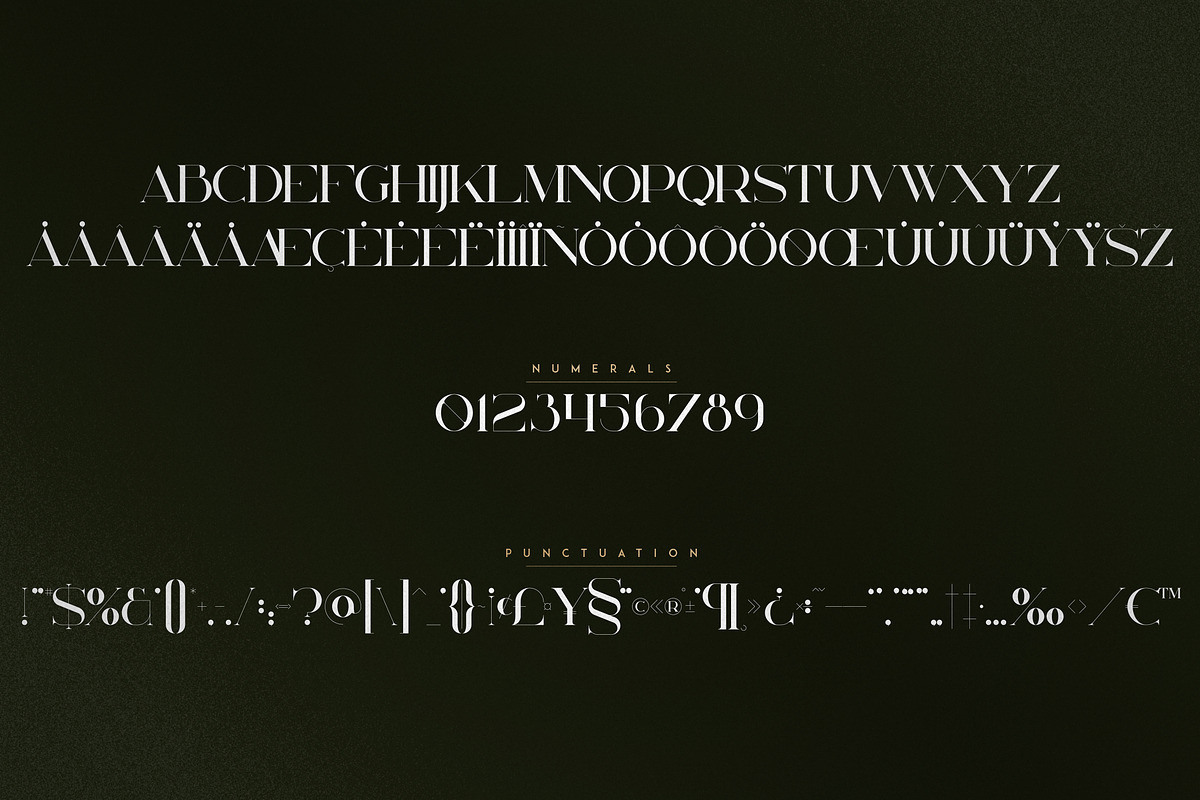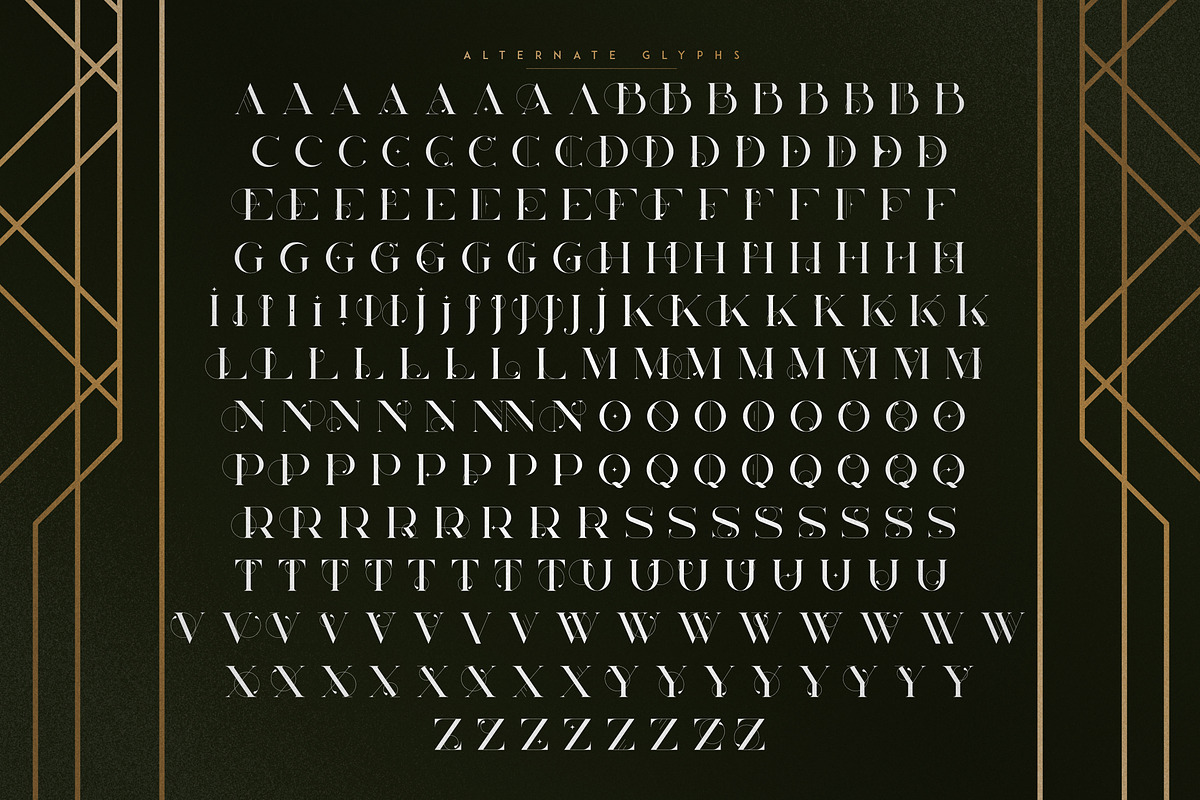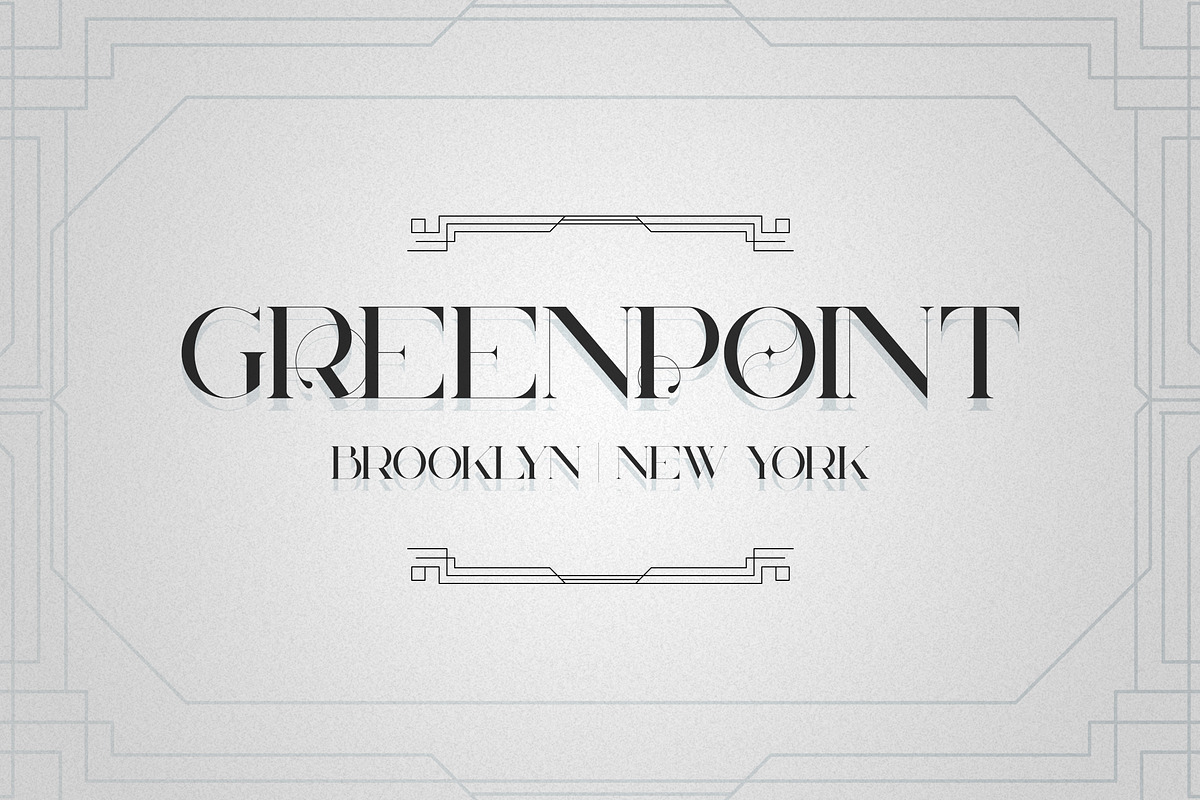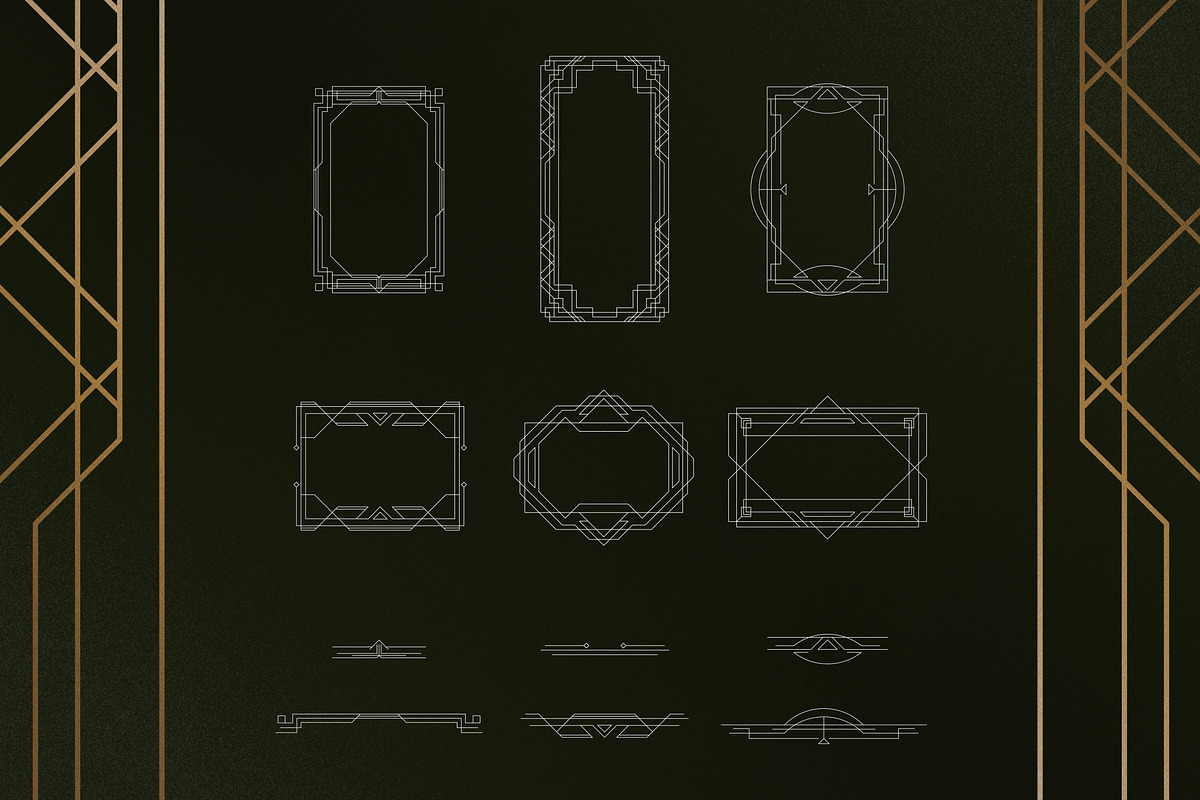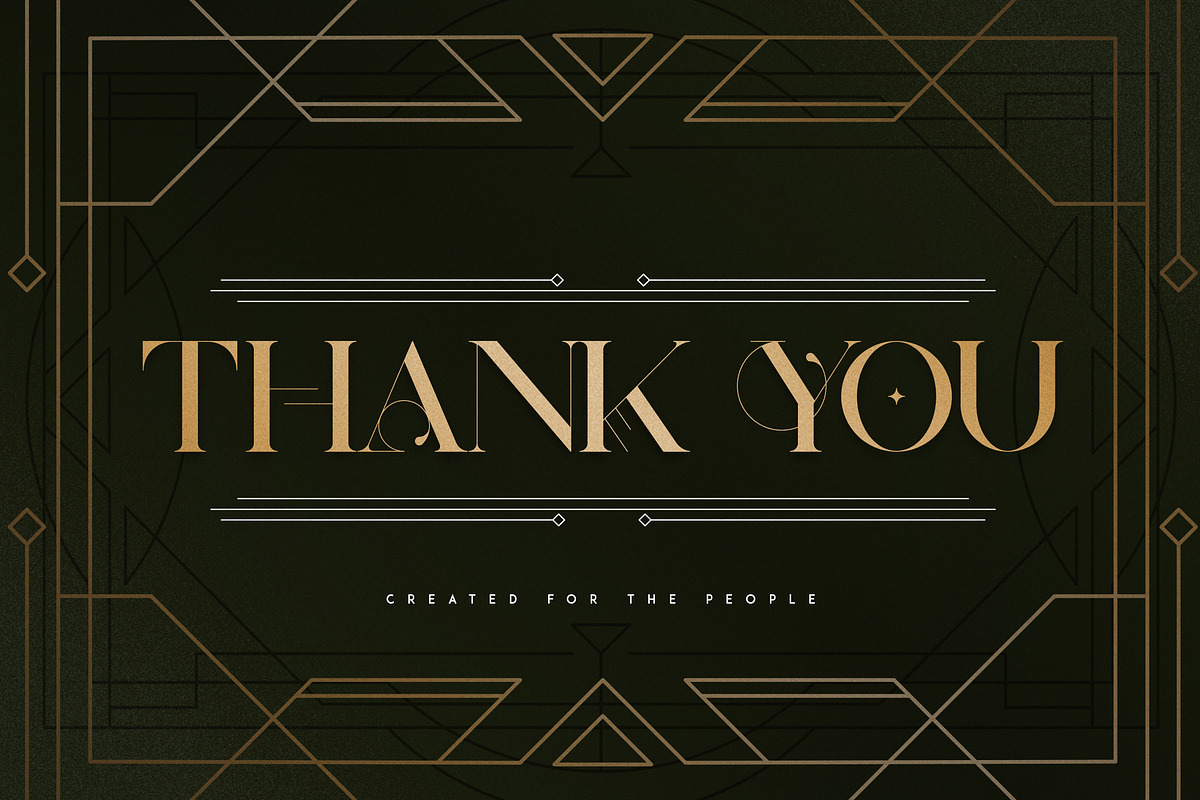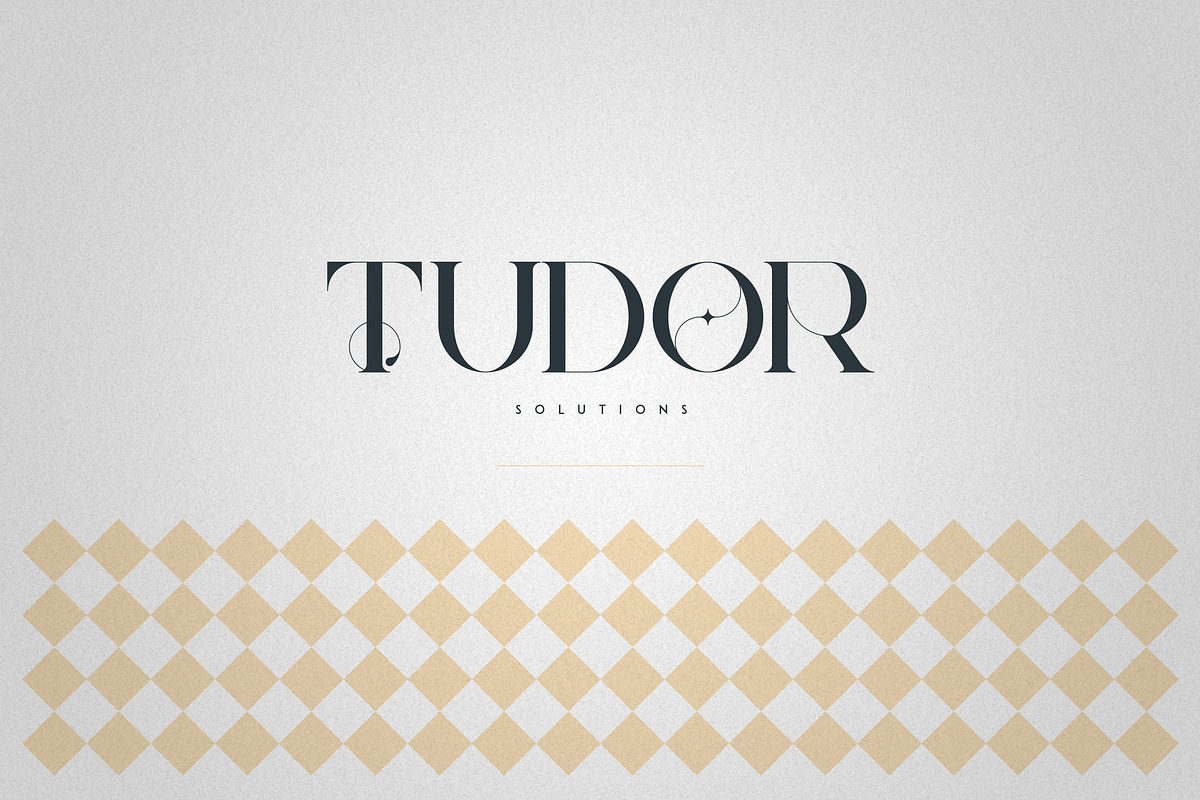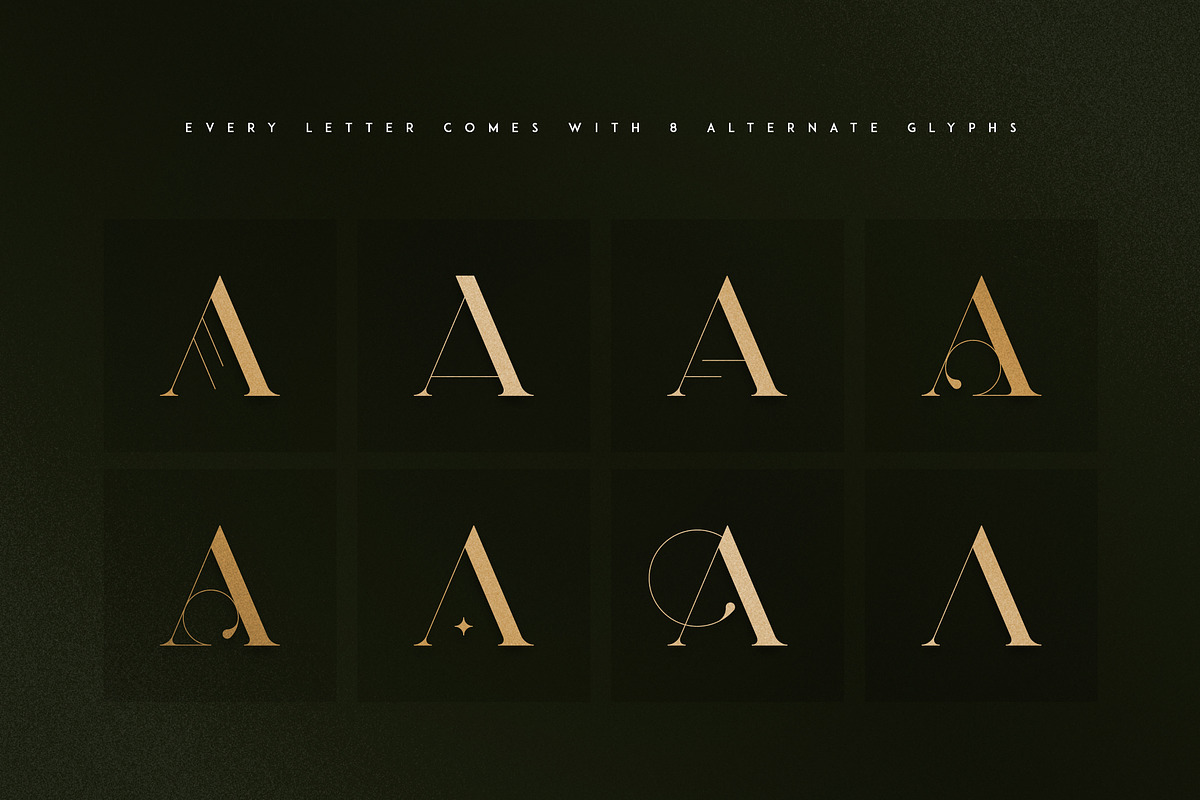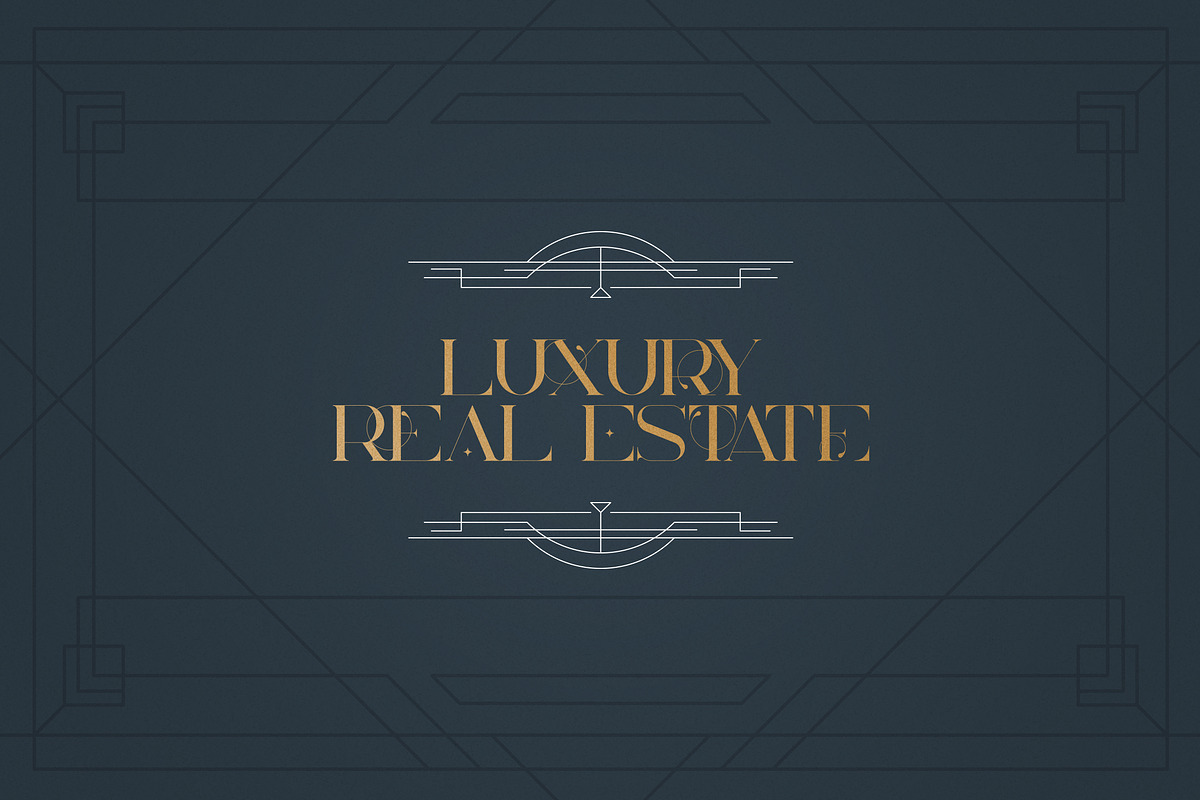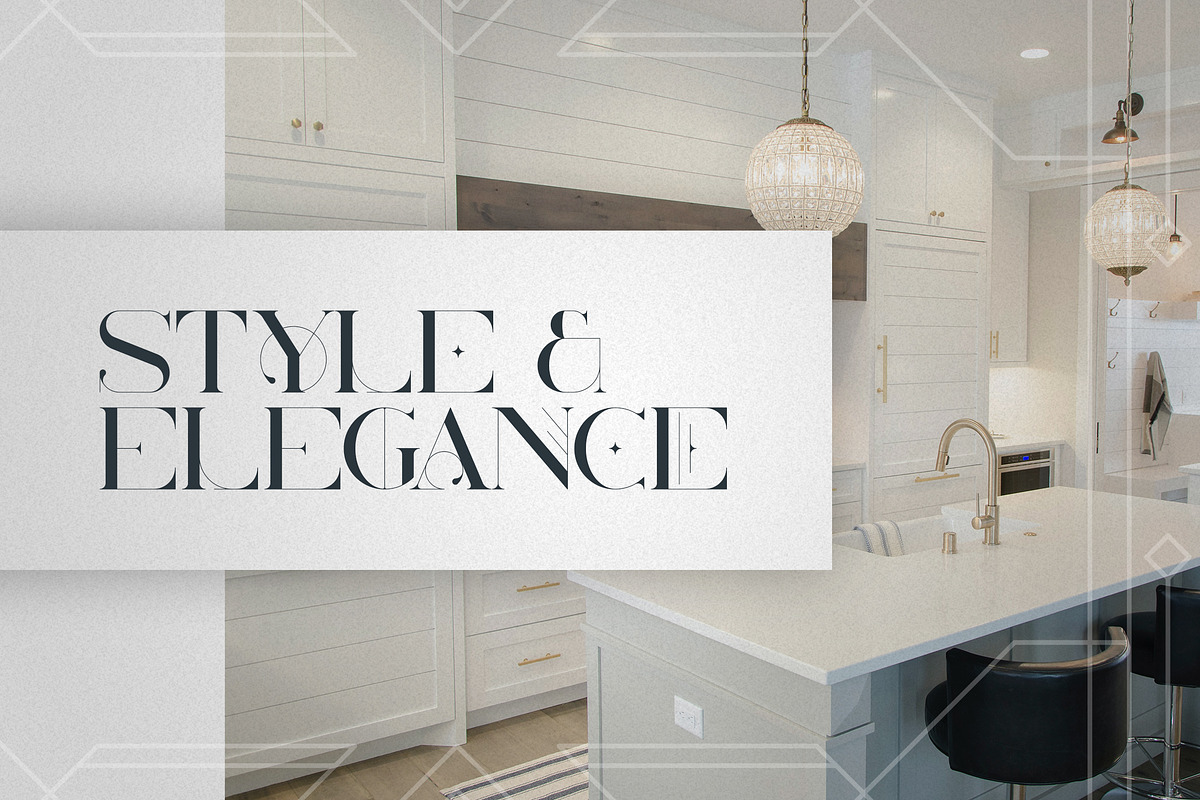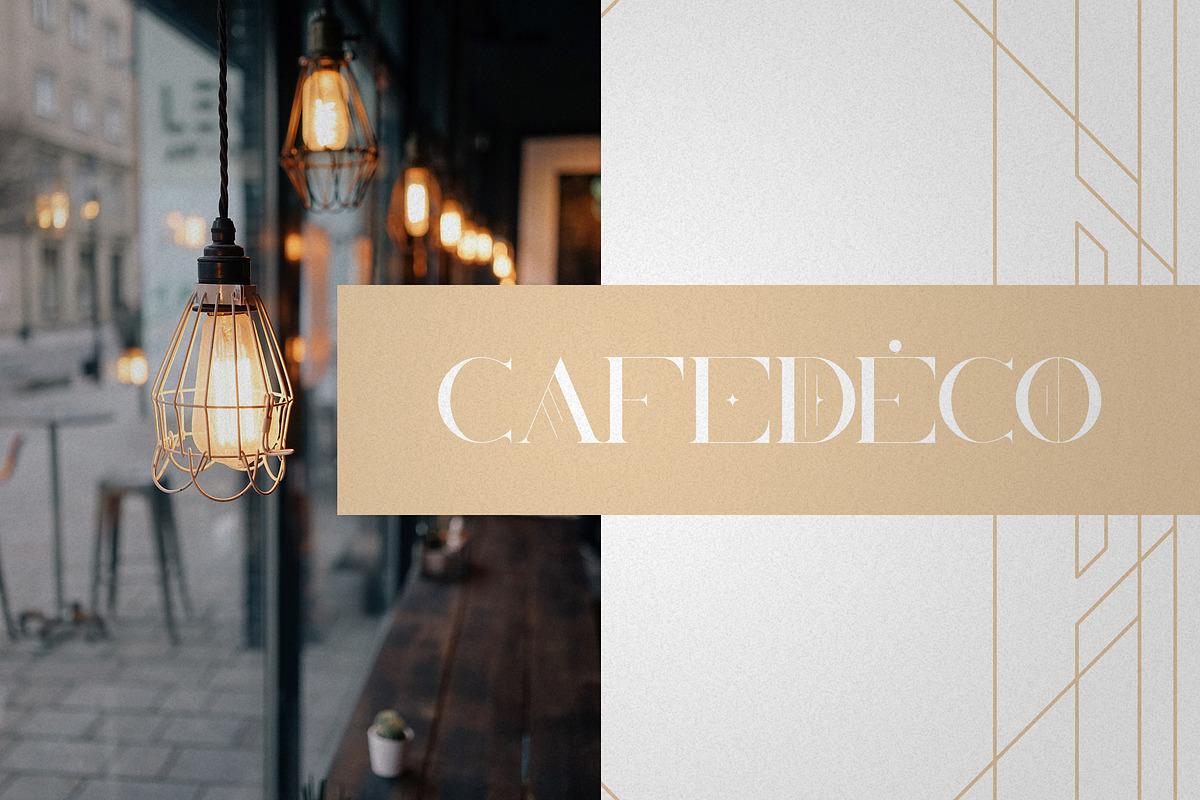
Billionaire Club - Art Deco Serif
Introducing Billionaire Club - Art Deco Serif Font + Frames and lines
Billionaire Club is luxury, Art Deco typeface loaded with 8 alternate glyphs for every letter, 6 frames, lines, and multilingual support. It's a very versatile font that works great in large and small sizes.
Billionaire Club is perfect for branding projects, home-ware designs, product packaging, magazine headers - or simply as a stylish text overlay to any background image.
- Uppercase, numeral, punctuation & Symbol
- 6 frames
- Lines
- Alternate glyphs